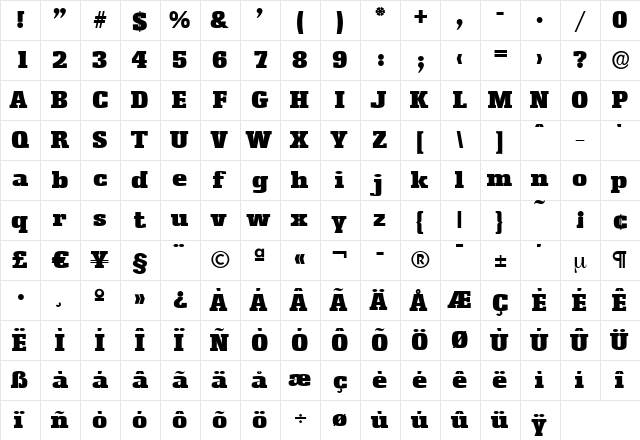
JasonBecker-Black Regular
Design Context for JasonBecker-Black Typeface
JasonBecker-Black is a composed and adaptable typeface that performs quietly and consistently across a wide range of design contexts.